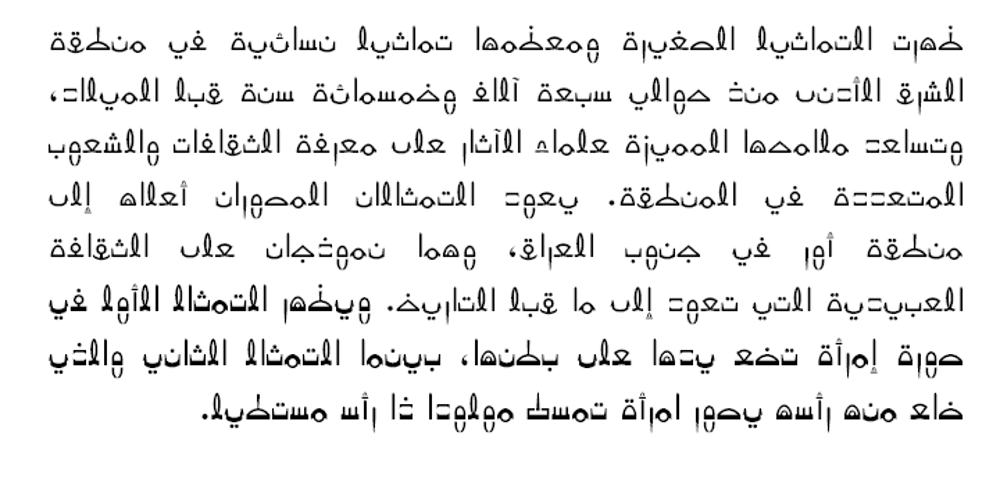
Mutamathil Mutlaq Font Family was designed by Saad D. Abulhab and published by Arabetics. Mutamathil Mutlaq contains 8 styles and family package options. The Mutamathil Mutlaq type family is the smallest size member of the Mutamathil type style. It has one glyph per basic Arabic Unicode character or letter. Each glyph is completely symmetrical around its vertical axis to facilitate bi-directional ordering. This family does not include any required ligatures and does not use glyph substitutions or forming but it does use marks positioning. Text strings composed using types of this family are non-cursive with stand alone isolated glyphs. The Mutamathil Mutlaq family includes both Arabic and Arabic-Indic numerals, all required diacritic marks, in addition to all standard English keyboard punctuations and major currency symbols. The fonts in this family support the following scripts: Arabic, Persian, Urdu, Pashtu, Kurdish, Baluchi, Kashmiri, Kazakh, Sindhi, Uyghur, Turkic, and all extended Arabic scripts.